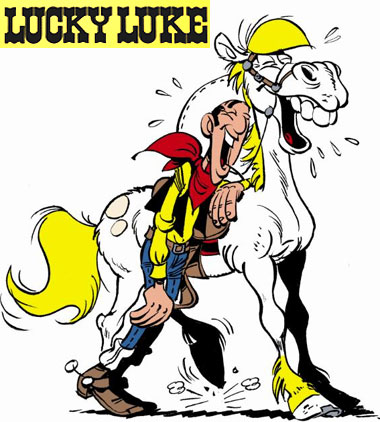
This is an hommage to the great creator of LUCKY LUKE, Maurice de Bevere, also known as "Morris" (1923-2001)!
This font is an upper case only font!
A-Z, dollarsign on "$", and two colts on "%" and "&"!
I realized that little brick, too.
but it isn't visible in the fontstroctor applet. i can see it in the preview, but none of the letters around "Z" have any flaws in the construction window !?!?
maybe that comes from excessive stacking on this one!
i don' know what to do. i can't erase those ghostbricks.
i thought about that but didn't find any... i'll check it again
EVERY glyph!
cool thalamic! i found 'em!
you were absolutely right, they were way over to the left of "$" :D
and thanks for reminding me to explain the font a little...
the gun is on "%".
I just decided to add a colt heading into the other direction.
it will be on "&".
i wish i could "flip" that glyph, cause it would be much less work :P
and now i think you're right. i changed that :)